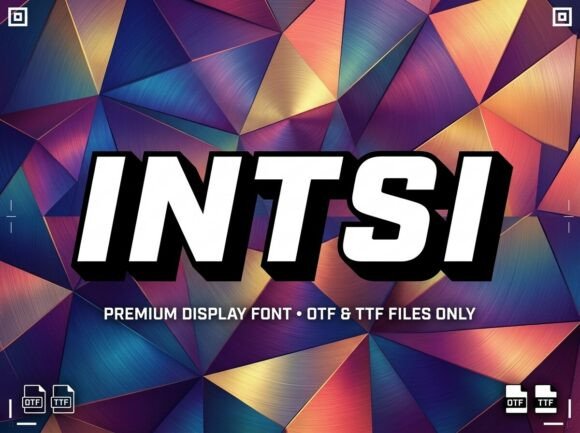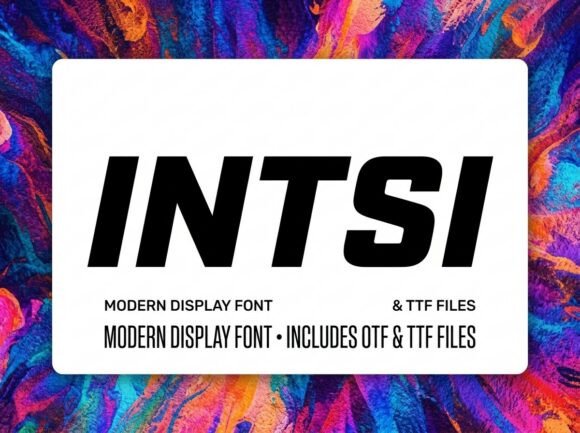
Introduction to Intsi Font
Imagine you’re a graphic designer tasked with creating a bold, eye-catching logo for a new extreme sports apparel brand. As you browse through your design library, you stumble upon a font that exudes raw energy and dynamism – Intsi Font. This powerful display typeface is an instant game-changer, commanding attention with its massive, slanted sans-serif letterforms and rhythmic 3D shadow effect.
With its heavy structural weight and energetic personality, Intsi Font is the perfect design resource for creative projects that demand high impact and dynamism. Whether you’re working on a free download for a fitness enthusiast or a high-quality social media header for an automotive racing brand, Intsi Font is sure to make your design stand out. Its versatility and unique aesthetic make it an invaluable asset for designers seeking to elevate their work and leave a lasting impression.
Key Features of Intsi Font
- High-quality design resource with a unique, creative style perfect for artistic projects
- Includes a wide range of characters, including uppercase and lowercase letters, numbers, and special symbols
- Perfect for use in graphic design, digital art, and other creative projects requiring a unique font
Honest Review: Intsi Font
I recently came across the Intsi Font, and I must say it’s a great addition to any designer’s toolbox. ✨
The Intsi Font is a beautiful, high-quality font that’s perfect for creative projects that require a unique touch. It’s a free download, which is always a bonus, and the transparent background makes it easy to use in a variety of design contexts.
Here are some of the things I like about the Intsi Font:
- Unique and stylish design
- High-quality font files
- Only available in a limited range of languages
- Some users may find the font too ornate or distracting
Overall, I’m impressed with the Intsi Font, and I think it’s a great resource for designers working on creative projects. It’s a high-quality font that’s easy to use and customize, and the free download makes it a great value. If you’re looking for a unique and stylish font for your next design project, I’d definitely recommend checking out the Intsi Font.
Intsi Font: A High-Quality Design Resource for Your Creative Project
Tips for Getting the Most Out of Intsi Font
Use the Intsi Font in conjunction with a transparent background to create a unique and eye-catching design. Experiment with different font sizes and colors to find the perfect combination for your creative project. You can also use the font to add a touch of elegance and sophistication to your design.
The Intsi Font is ideal for use in a variety of creative projects, including logos, brochures, business cards, and social media graphics. Its high-quality design and versatility make it a great addition to any design resource collection.